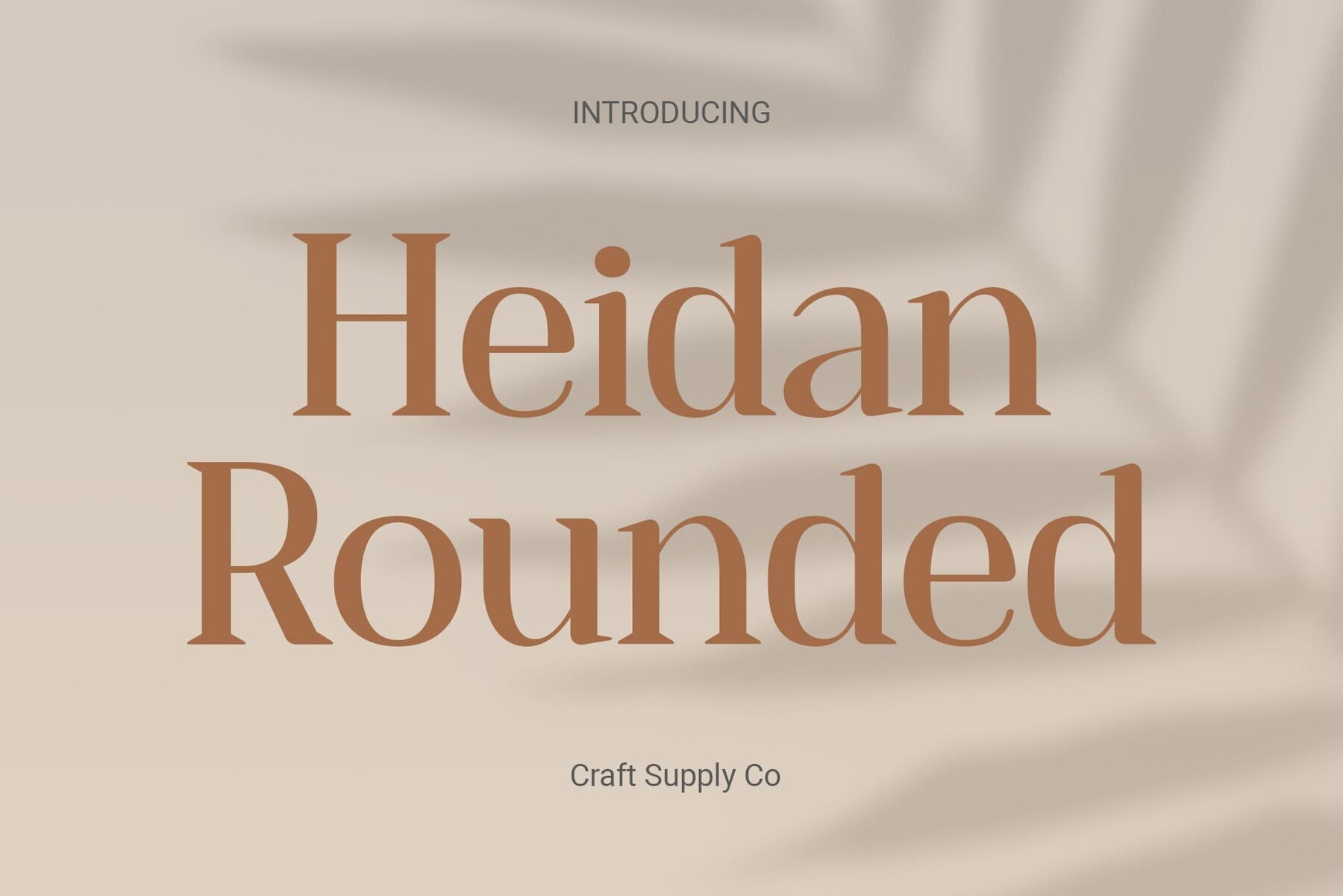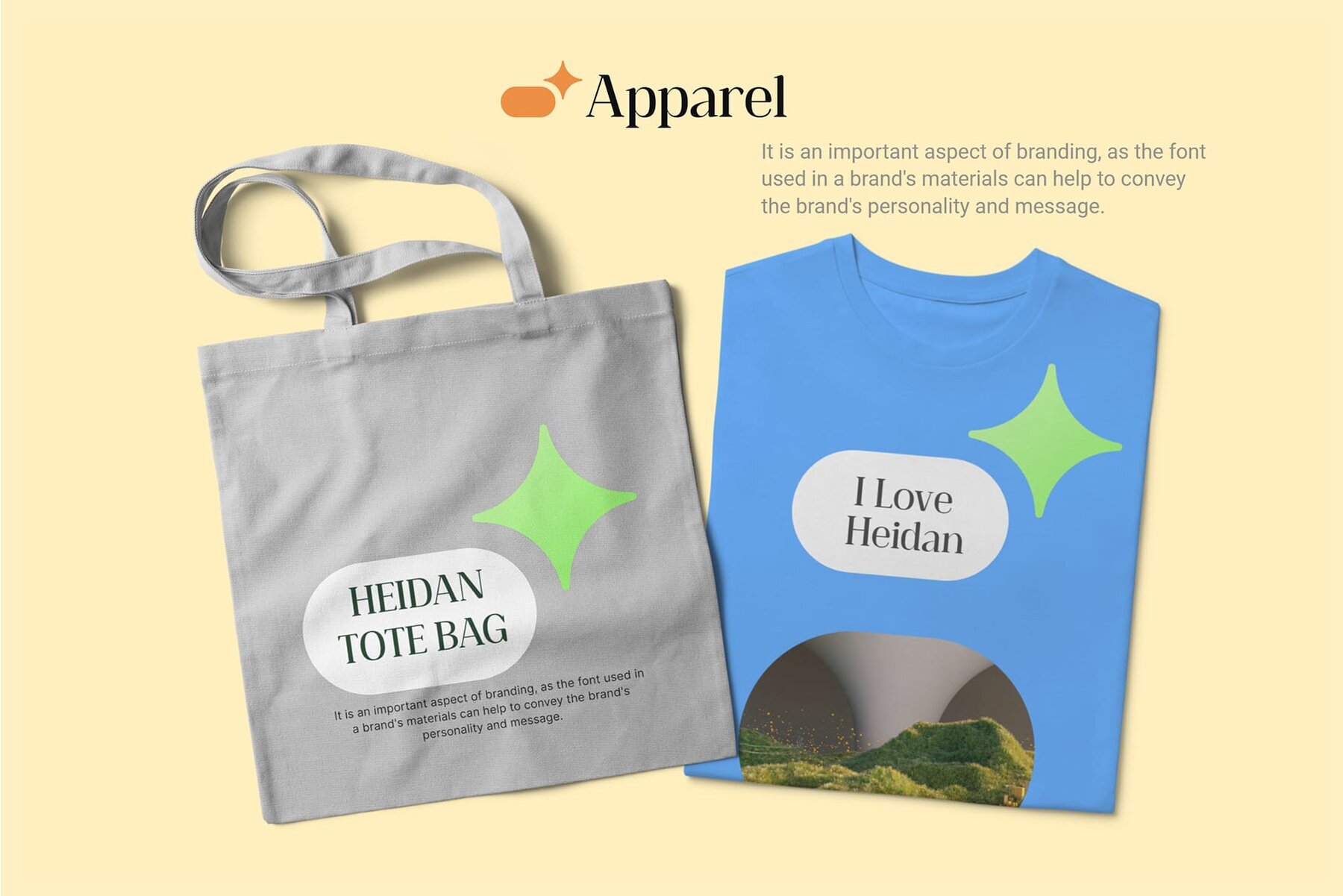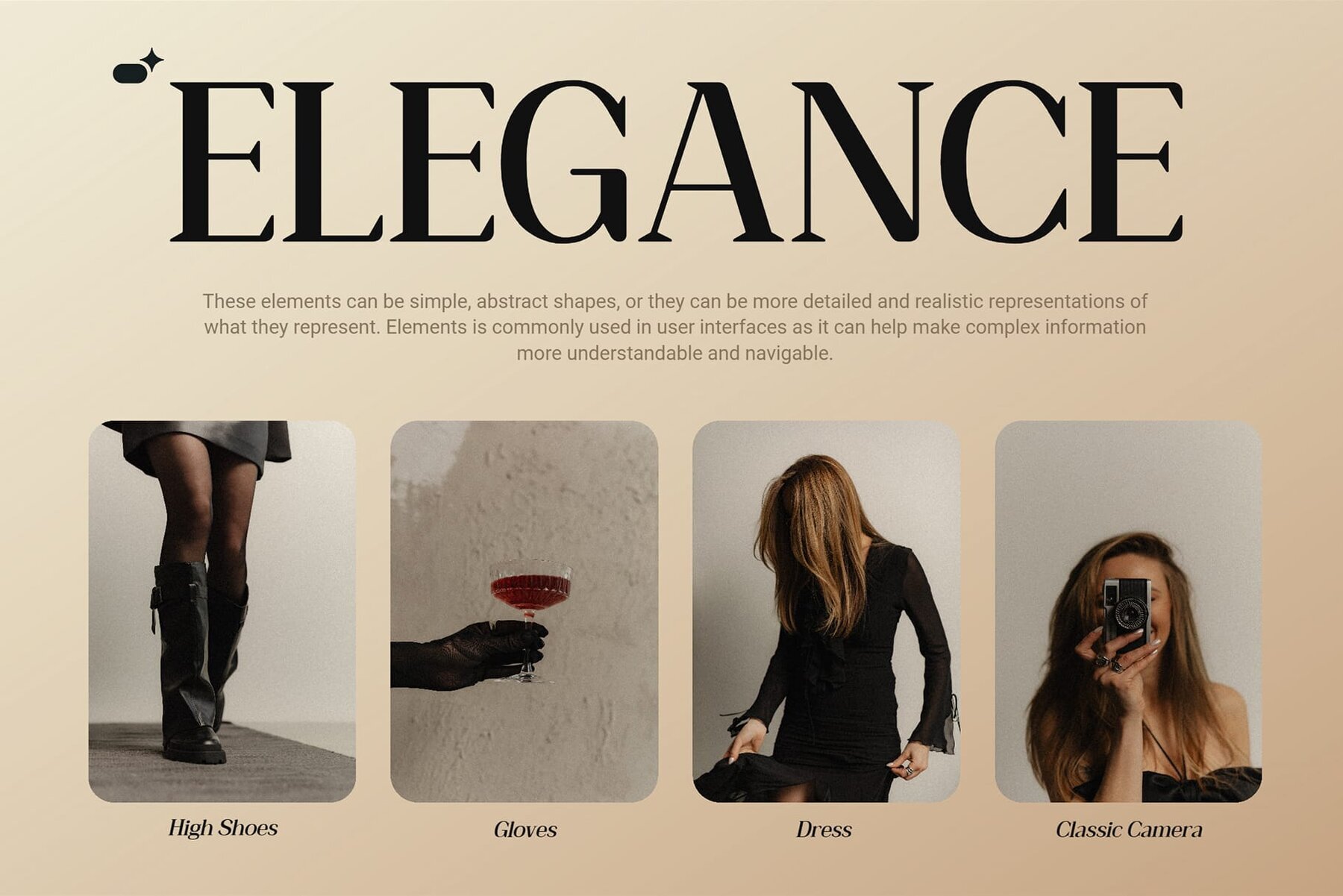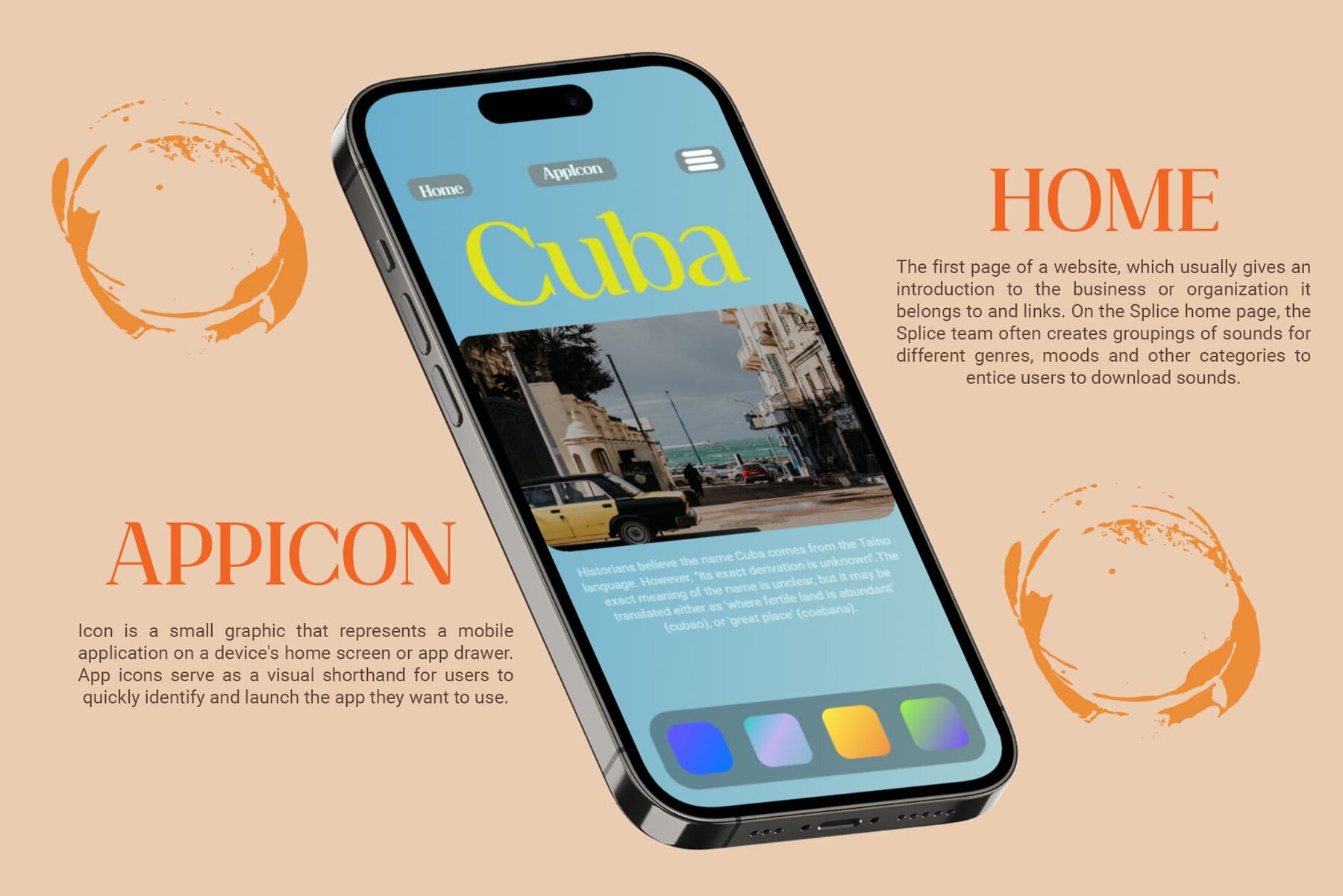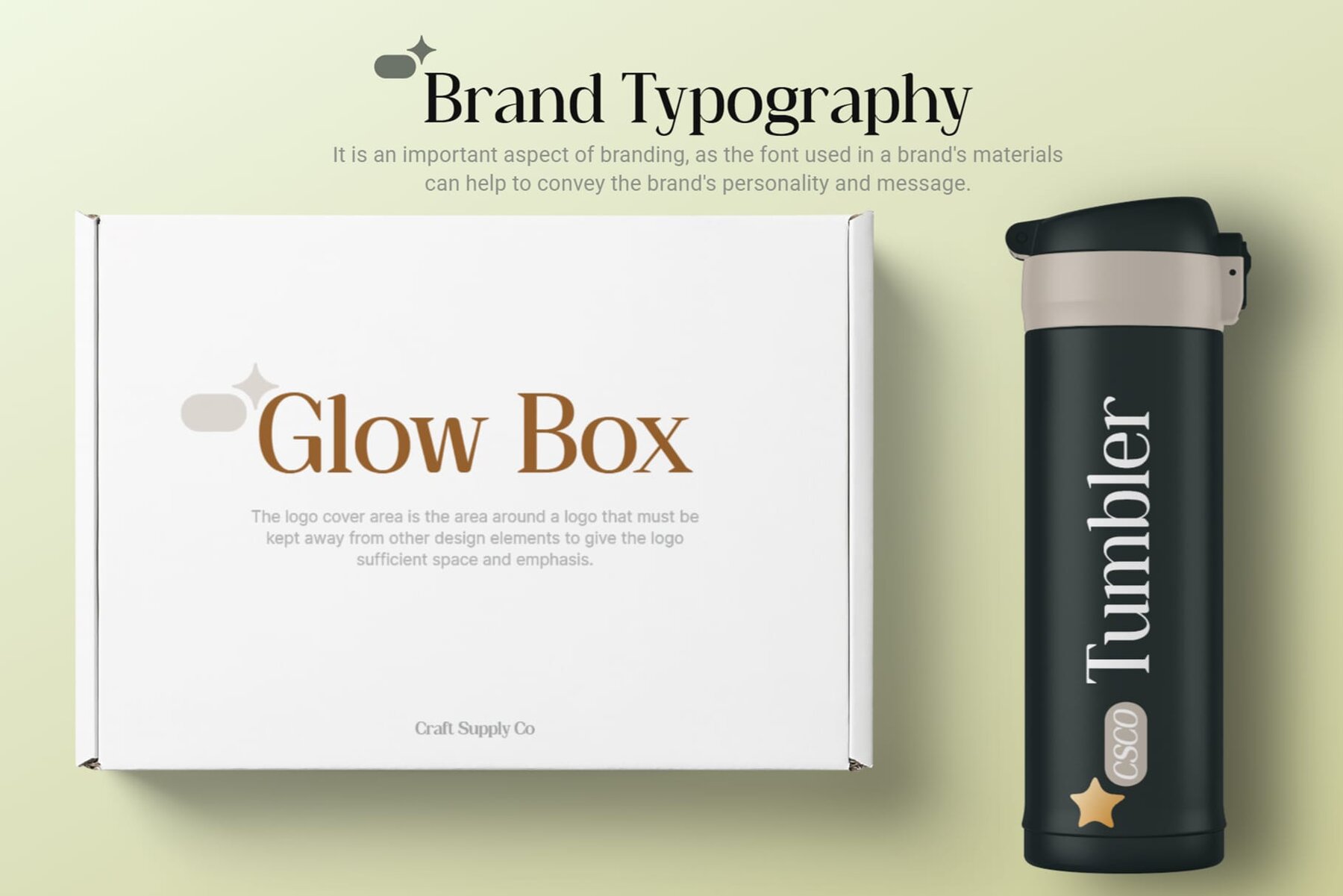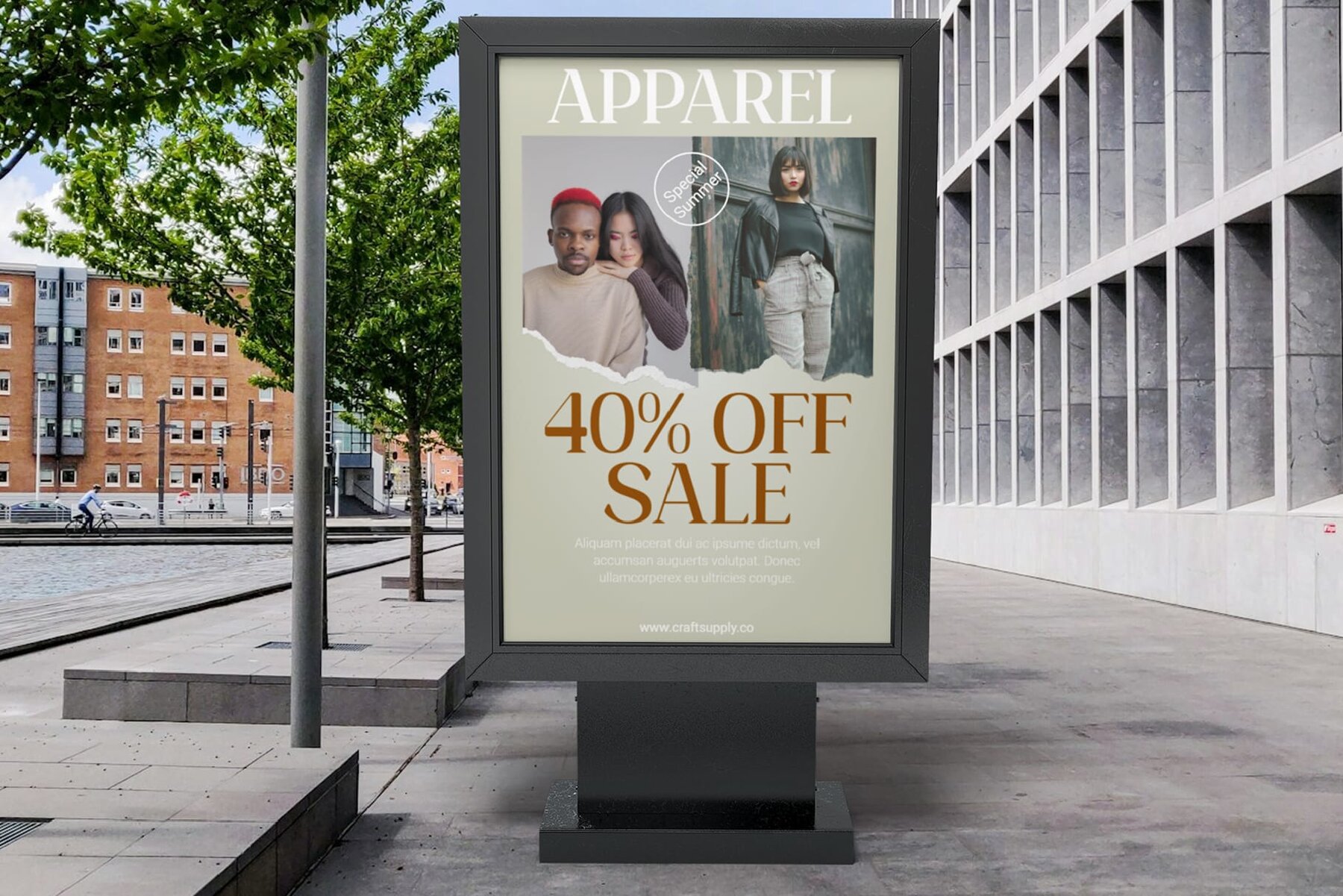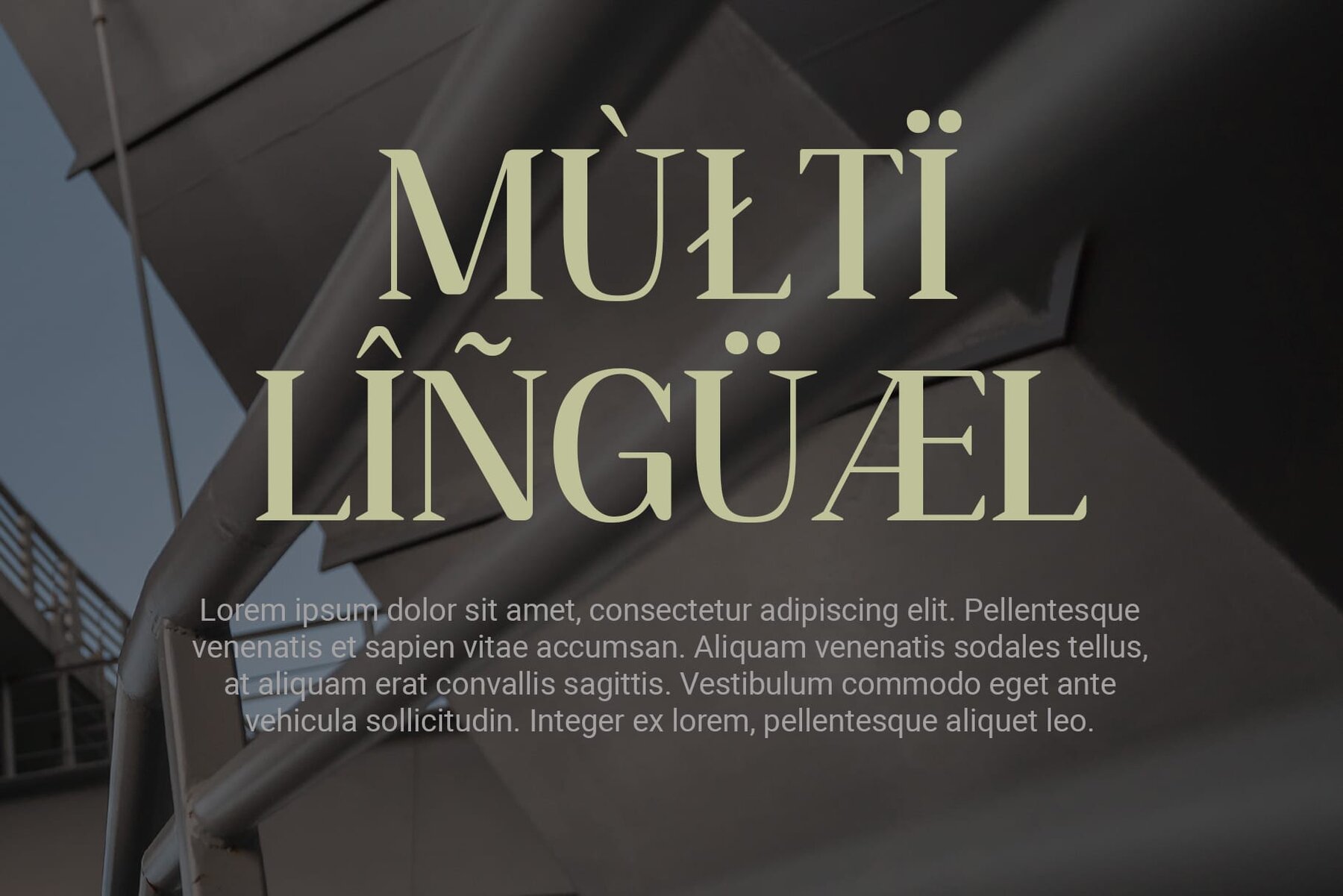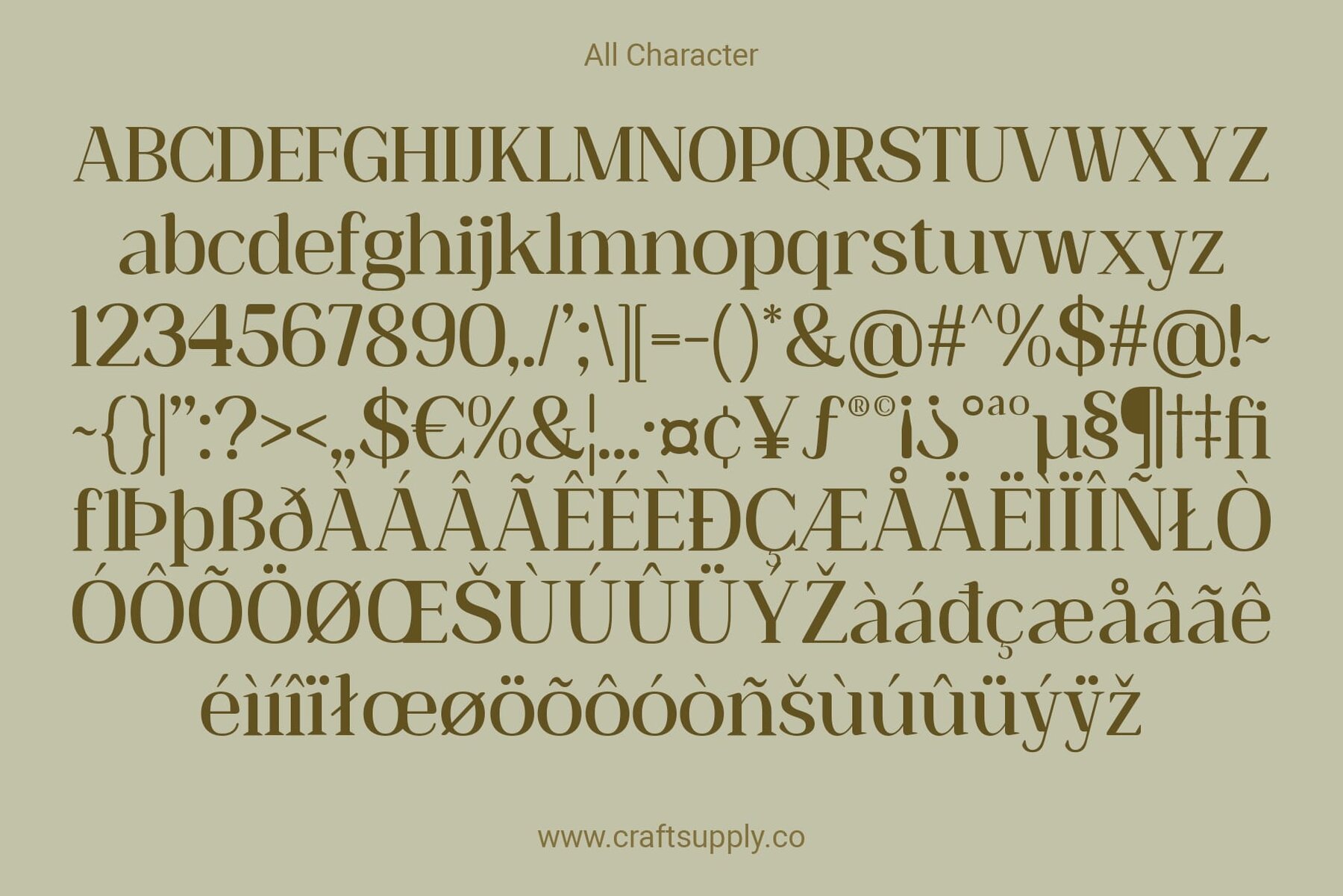
Heidan Rounded Font
Heidan Rounded offers a serif typeface with striking high contrast, enhancing its elegance. The bold strokes and delicate curves deliver a captivating visual impact. The rounded edges of Heidan Rounded add a touch of refinement to its minimalist design. This subtle feature softens the overall appearance, making it both approachable and modern. Designed for the modern aesthetic, Heidan Rounded embodies simplicity and sophistication. Its clean lines and rounded terminals make it an ideal choice for projects requiring a minimalist touch. Heidan Rounded's versatility extends across various design applications, from branding to editorial layouts. Its minimalist yet impactful presence ensures seamless integration into any contemporary project. Heidan Rounded stands as a testament to modern elegance in serif typography. With its high contrast and rounded edges, it balances minimalism and sophistication, making it a versatile choice for designers seeking refined simplicity. You can use this typeface without needing any specialized software. If you have any inquiries or need assistance, please feel free to contact us. We appreciate your support in enhancing your creative projects!Heidan Rounded: Minimalist Sophistication in Serif
Rounded Edge Refinement
Minimalist Appeal
Versatile Modernity
Modern Elegance